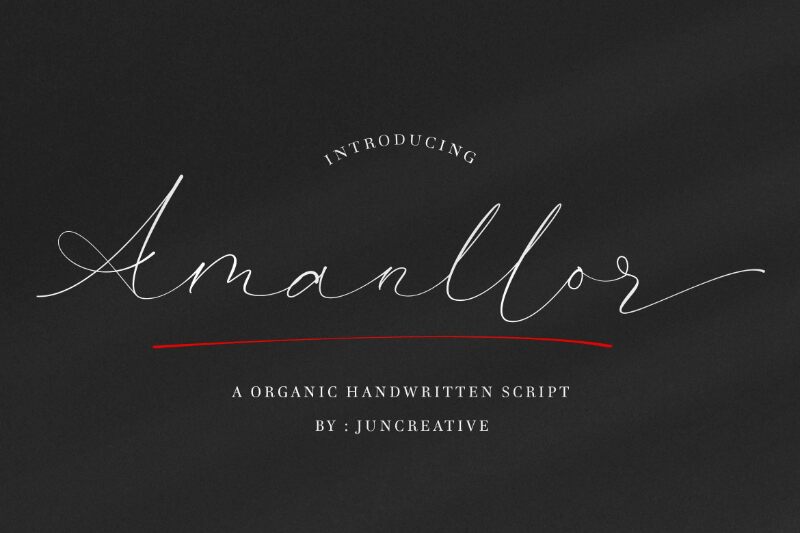
Amanllor
Amanllor, the latest addition to JunCreative's font family, is an exquisite handwritten typeface that will charm its way into your heart. With its extra-light weight, Amanllor exudes a delicate and ethereal vibe that is perfect for projects that require a personal touch. Whether you're designing wedding invitations or creating a heartfelt greeting card, this font will bring your words to life with its whimsical curves and elegant flourishes. Its versatility makes it suitable for branding and advertising projects as well - use it to create logos or headlines that stand out from the crowd. Get ready to fall in love with Amanllor!